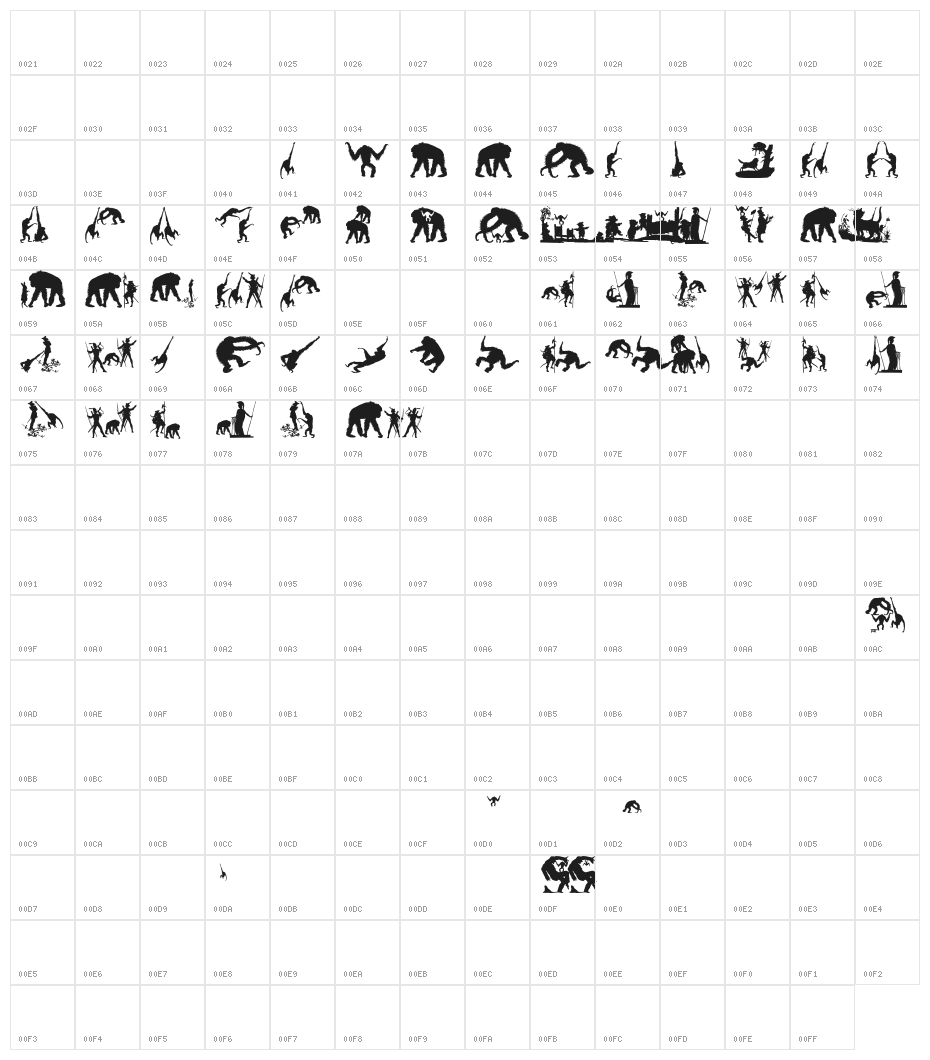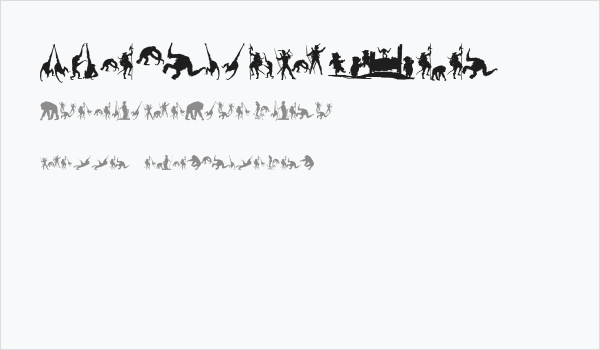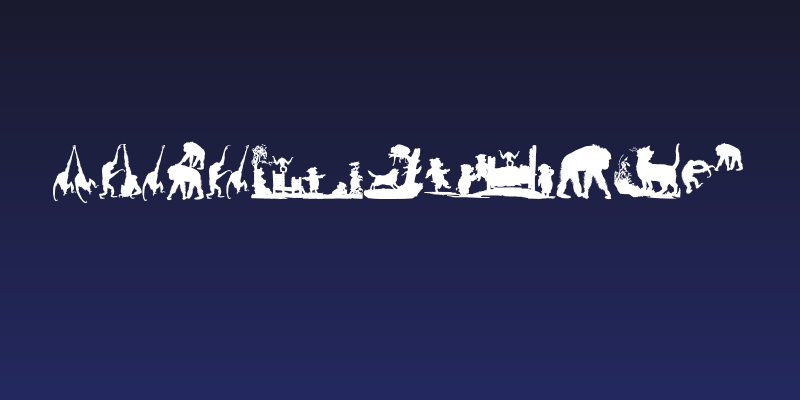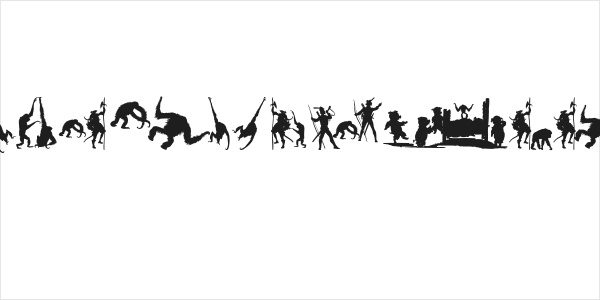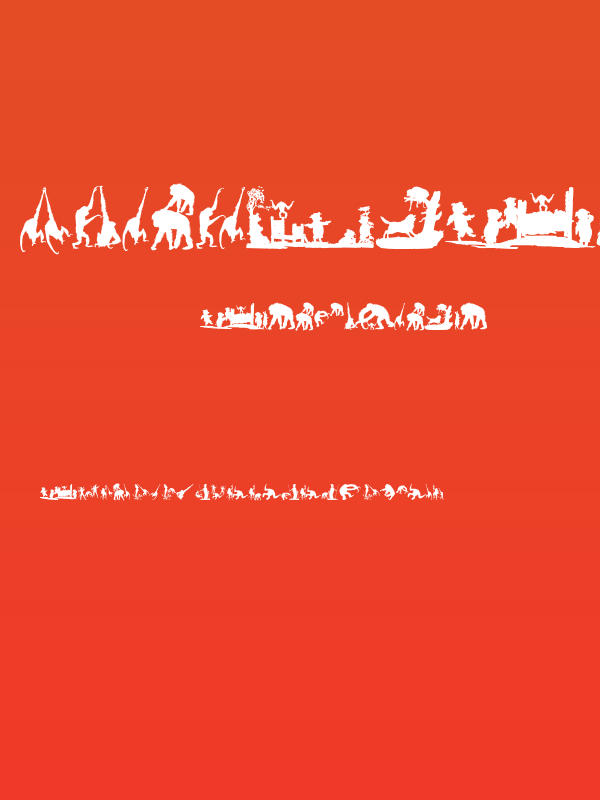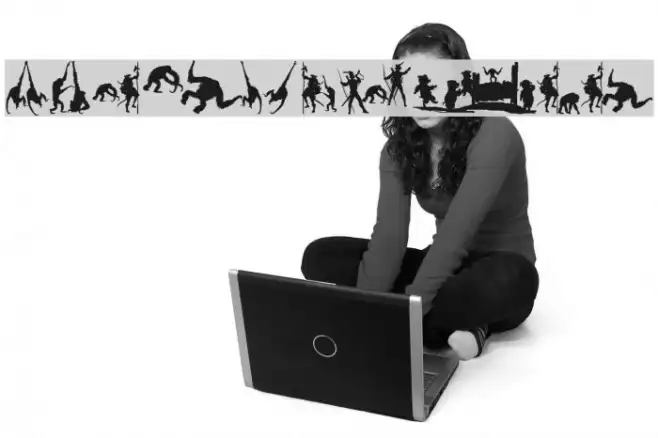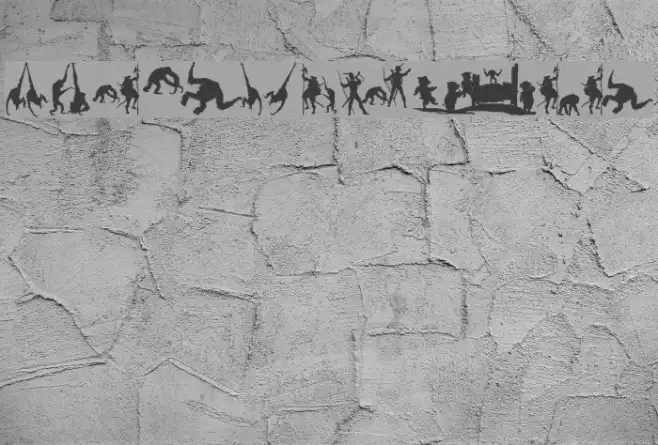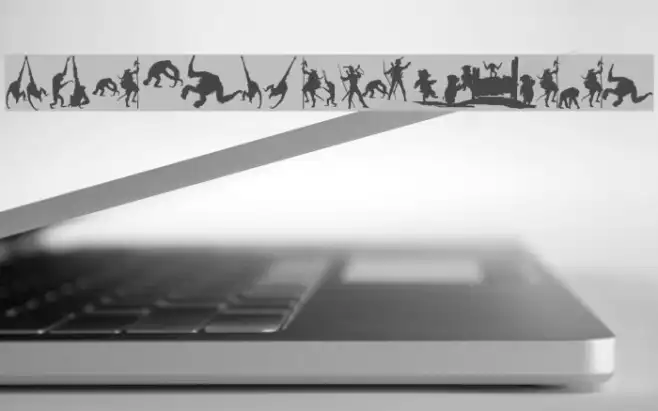
MKapishTwo Font
MKapishTwo Description
A highly decorative font composed of silhouettes depicting various stages of human and primate evolution, including figures of early humans, apes, and people with spears. Each character is represented by a unique scene or figure, making the set visually thematic and illustrative rather than typographically traditional.
| Overall Style | Decorative, Thematic, Illustrative |
| Use Case | Display, Posters, Themed Titles, Educational Materials |
| Proposed Projects | Educational posters, museum exhibits, science-themed event branding, creative book covers, evolutionary biology presentations. |